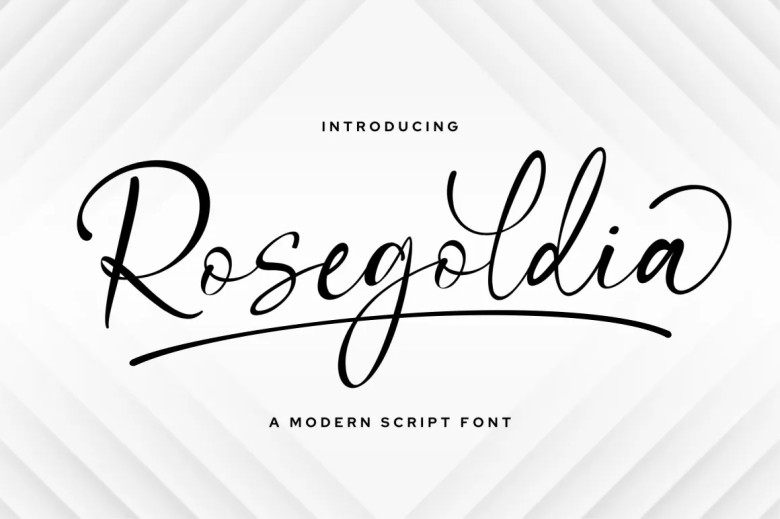
Rosegoldia Font
“Rosegoldia” is a modern script font which effortlessly marries elegance with contemporary style. With graceful curves and sleek letterforms, this font can add sophistication to your designs while giving them a touch of elegance. Rosegoldia makes an excellent choice for logos, branding and other projects requiring modern script fonts; add this touch of grace for maximum impact in all of your projects!
Rosegoldia Script Font